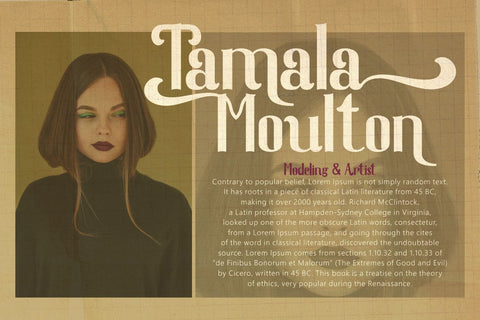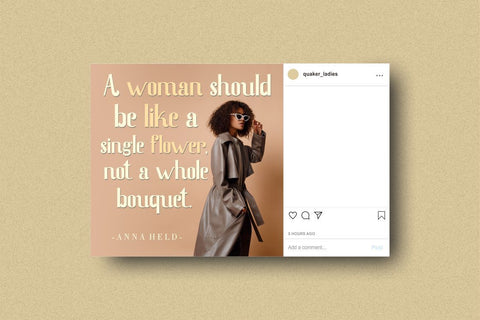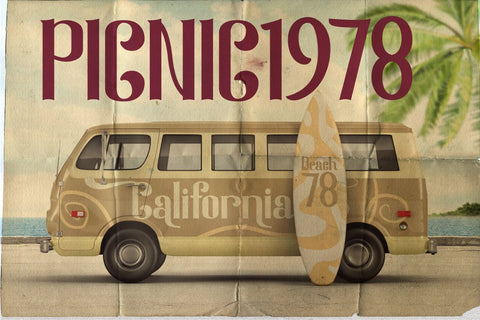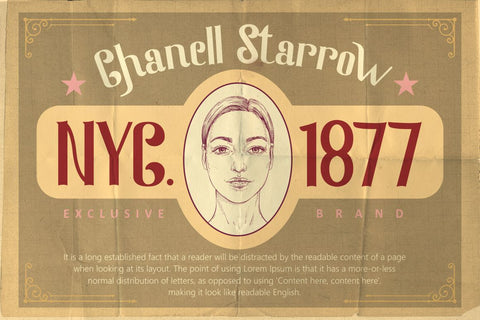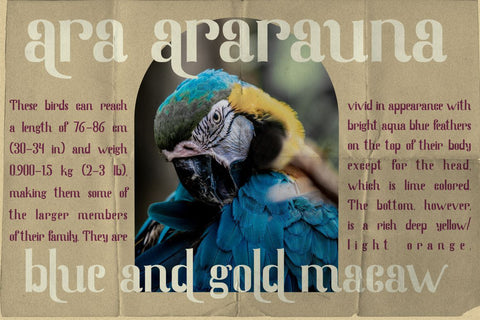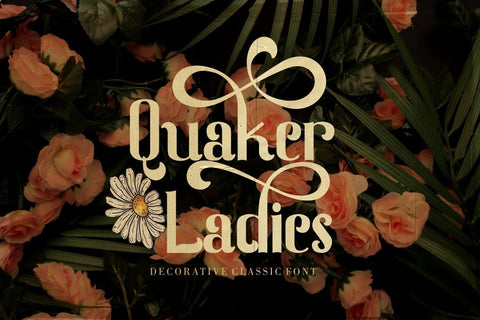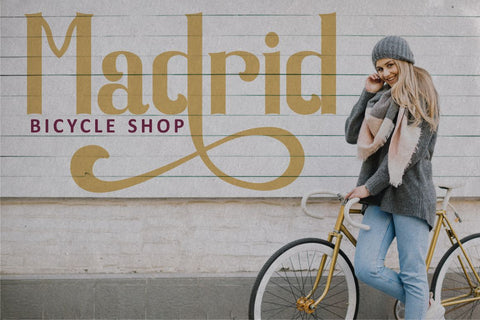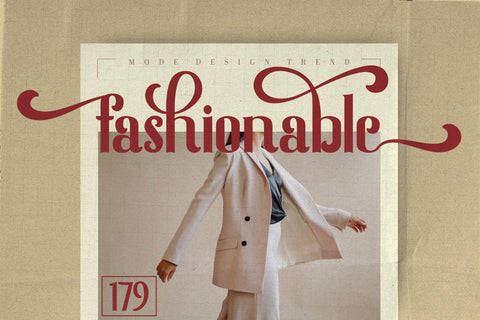
Quaker Ladies - Decorative Classic Font
Quaker Ladies is a decorative classic font with tons of alternative glyphs and multilingual support. It's classic, vintage and elegant.
Come with open type feature with a lot of alternates, its help you to make great lettering.
Quaker Ladies best uses for heading headlines, cover, poster, logos, quotes, product packaging, merchandise, social media & greeting cards and many more.